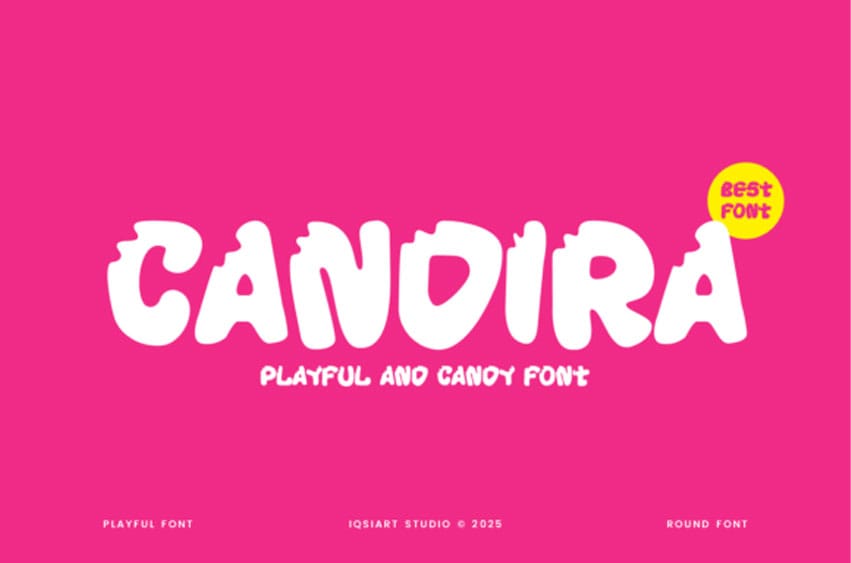
Candira Font is a bold, bouncy, and irresistibly sweet display font that captures the fun of candy and childhood.
Its thick, squishy letterforms and quirky style make it a perfect choice for kids’ products, packaging, party invitations, playful branding, and anything that needs a touch of sugary charm. Add instant joy to your designs with this candy-coated font!